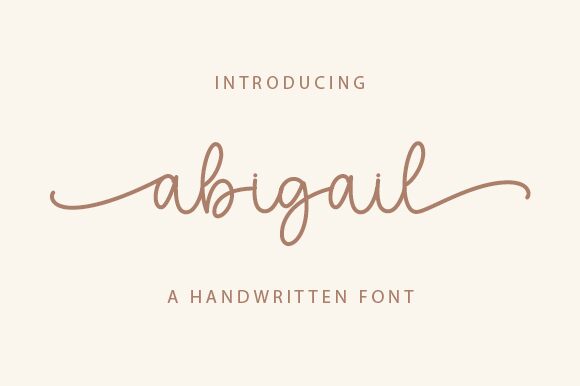
Abigail
Abigail, the dreamy and whimsical handwritten font designed by Graphix Line Studio, is here to add a touch of ethereal beauty to your projects. With its extra-light weight and delicate curves, Abigail is perfect for creating romantic wedding invitations or heartfelt love letters. But don't let its delicate appearance fool you - Abigail also has a playful side that makes it ideal for designing children's book covers or crafting Instagram quotes that pop. So whether you're looking to create something sweet and sentimental or fun and lively, Abigail is the perfect semi-bold font typeface for all your design needs.